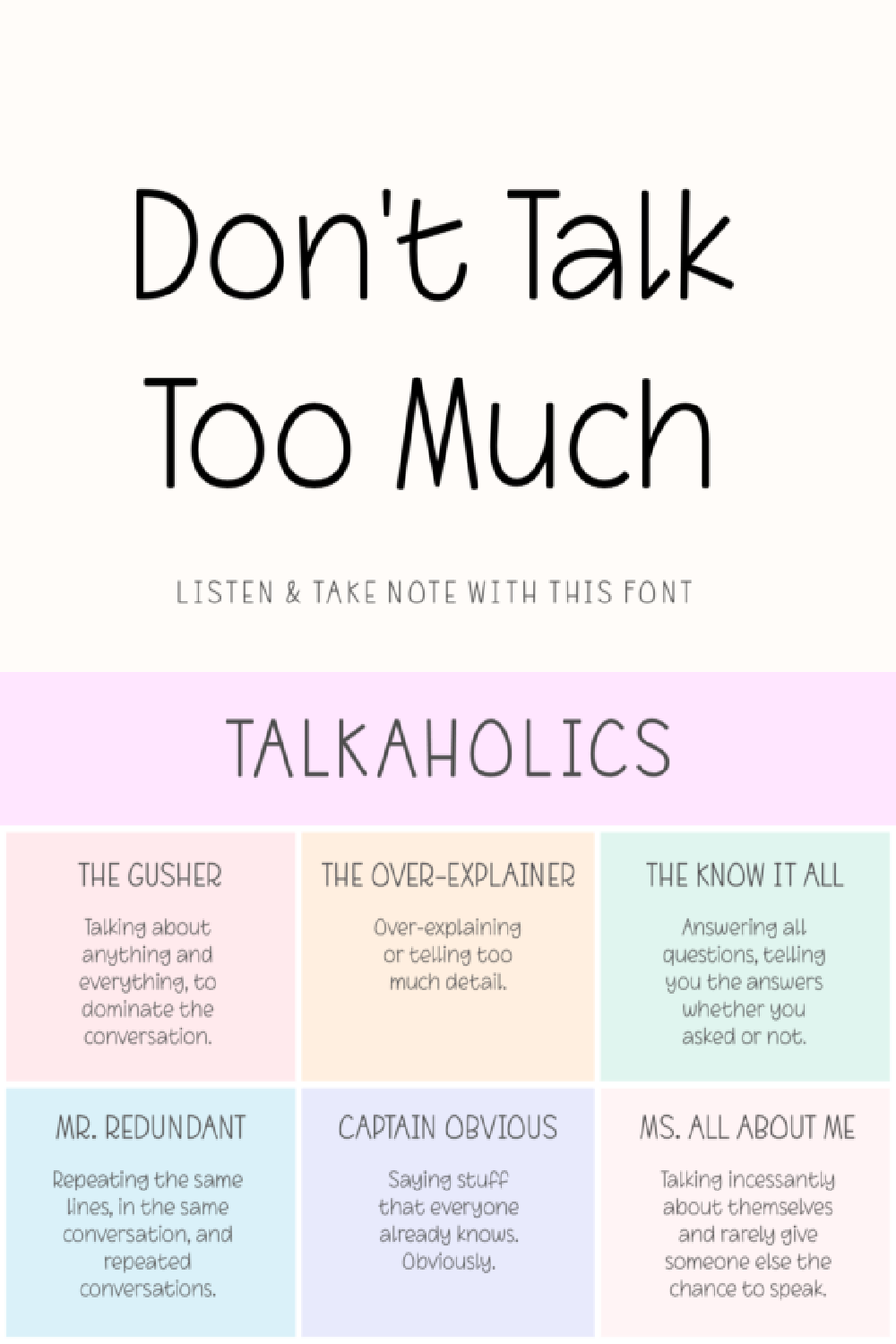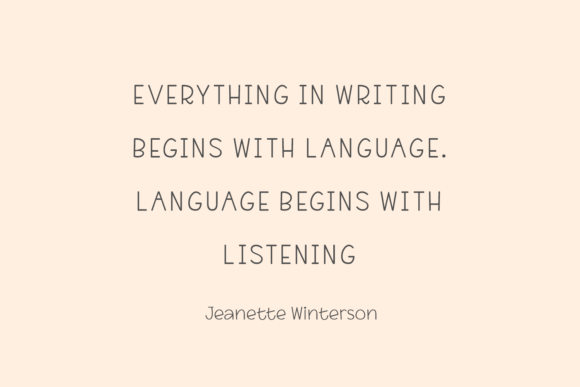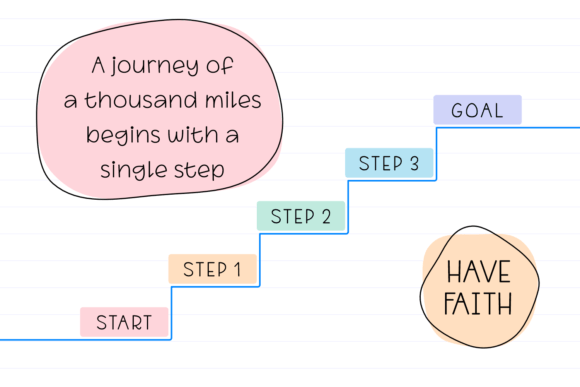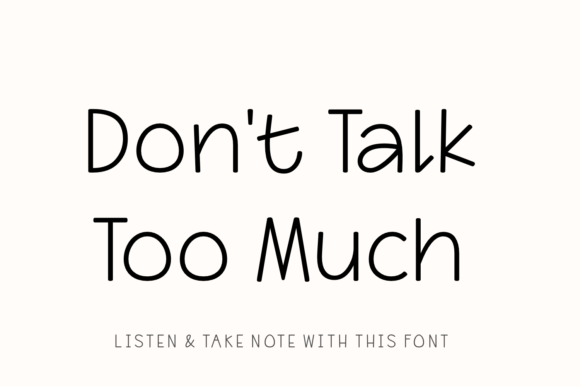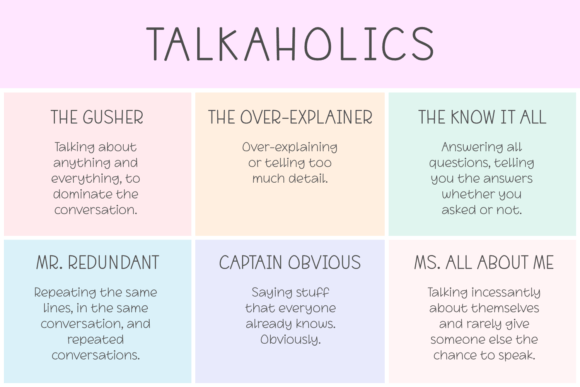
Don’t Talk Too Much Font
About the Don’t Talk Too Much Font
Meet Don’t Talk Too Much Font, a stunning font that brings a touch of elegance and professionalism to any design. Don’t Talk Too Much is a delightfully unique handwritten font lending a dash of sweetness into your creative endeavors. Its captivating minimalist charm immerses your work into an irresistible atmosphere of enchantment. Exuding a simplicity that harmonizes across various applications, this font is the perfect complement to uplifting invitations, custom-made cards, informal school notes, and eccentric to-do lists – adding an electrifying spark to your creative dynamism. Lovingly crafted, Don’t Talk Too Much infuses your projects with a playful yet minimalist essence and exhibits a handmade charm that’s both charming and memorable.